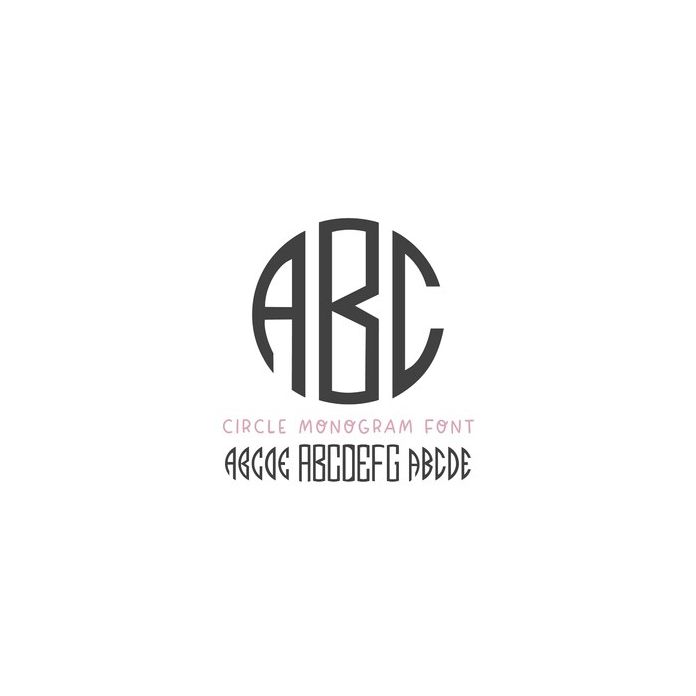
Circle Monogram is a standard monogram font that everyone needs in their collection! *PLEASE SEE THE INSTRUCTIONS LINK FOR FONT KEY. This font includes a-z for all 3 columns.